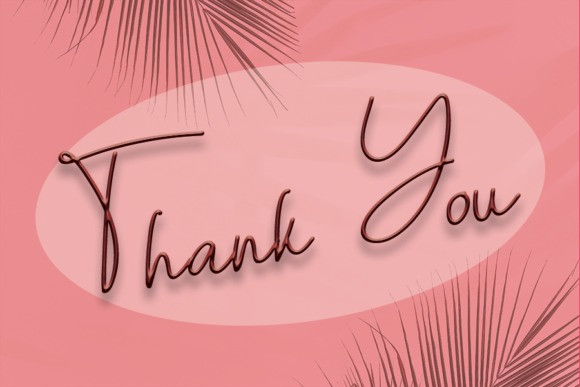
Beauty Queen Handwritten Font
Beauty Queen is a lovely script font. This font is neatly crafted and highly detailed. Whatever the topic, this font will be a wonderful asset to your font library, as it has the potential to enhance any creation.